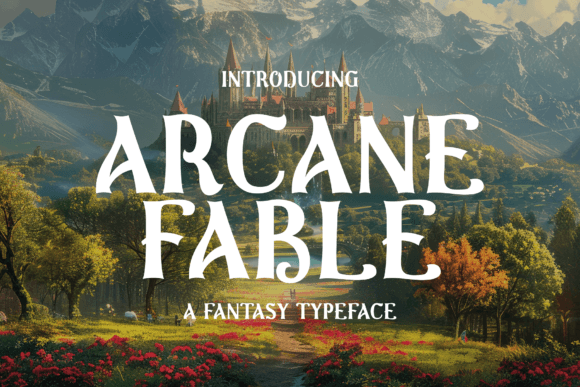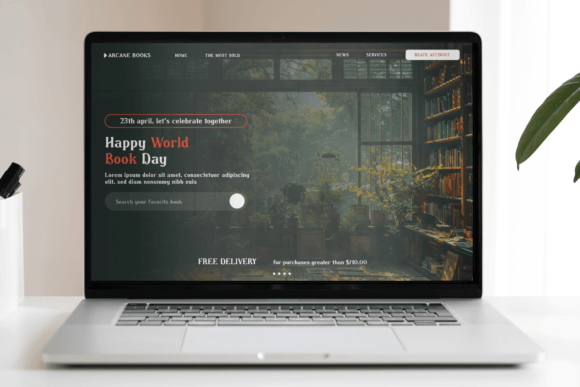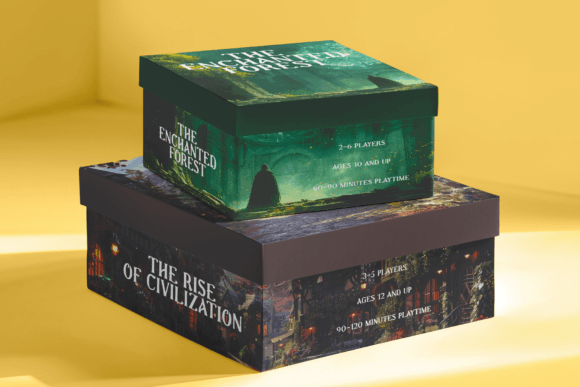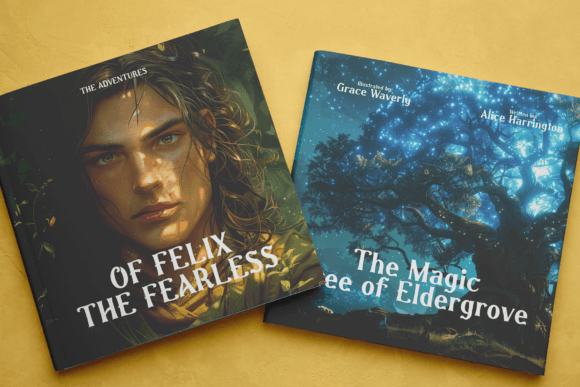
Arcane Fable Font
Introducing Arcane Fable, a fantasy-inspired typeface perfect for stories and books. This enchanting typeface captures the mystique and wonder of magical realms, bringing your tales to life with a touch of whimsy and grandeur. Perfect for book covers, chapter headings, and body text, Arcane Fable enhances the reading experience by adding a layer of visual enchantment to your storytelling. Whether you’re writing epic sagas, fairy tales, or whimsical adventures, this typeface provides the ideal blend of readability and fantasy flair.